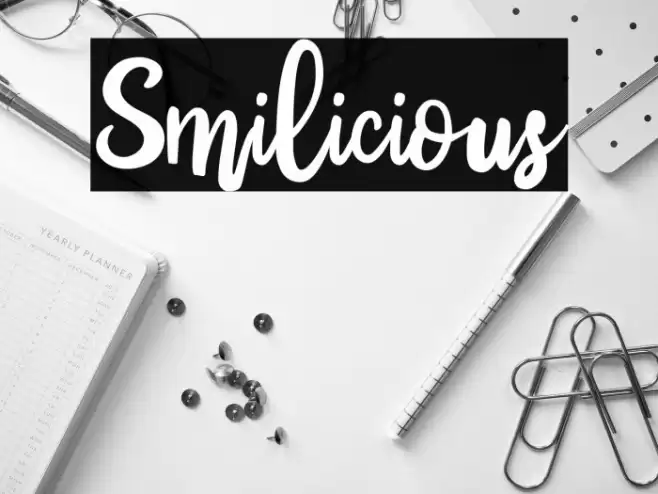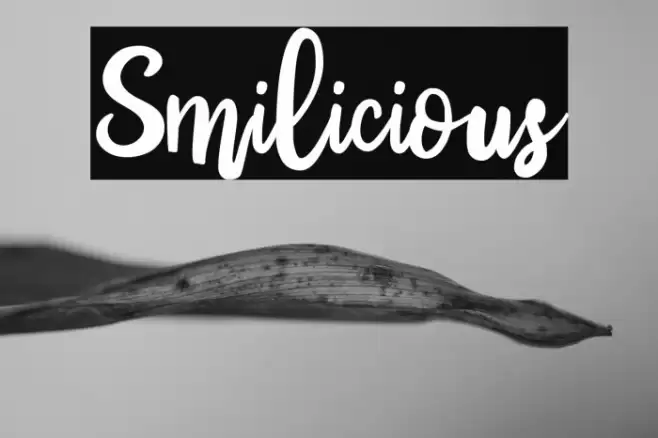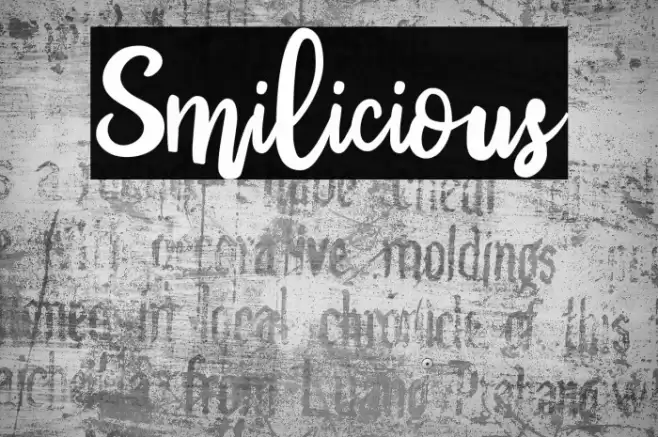
Smilicious Font
Smilicious Description
This font features a playful and energetic script style, characterized by its bold and flowing letterforms. The uppercase letters are slightly more structured, while the lowercase letters exhibit a more casual and handwritten appearance. The numbers and special characters maintain the same lively and dynamic feel, making them cohesive with the rest of the font. The strokes are thick and consistent, providing a strong visual impact. This font is ideal for projects that require a personal touch or a sense of fun and creativity.
A bold, playful script font with flowing, energetic letterforms from Regular fonts.
- Font: Smilicious
- Proposed Projects: Ideal for greeting cards, playful branding, social media graphics, and creative invitations.
- Use Case: Logos, Headlines, Invitations